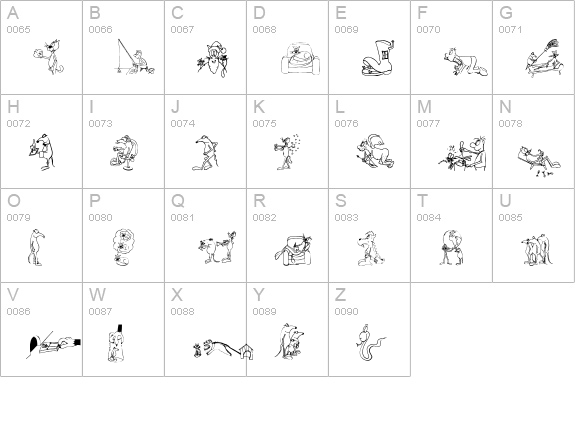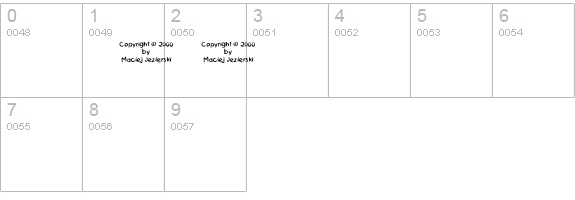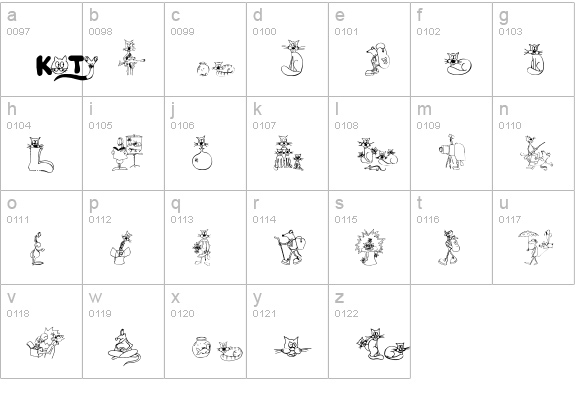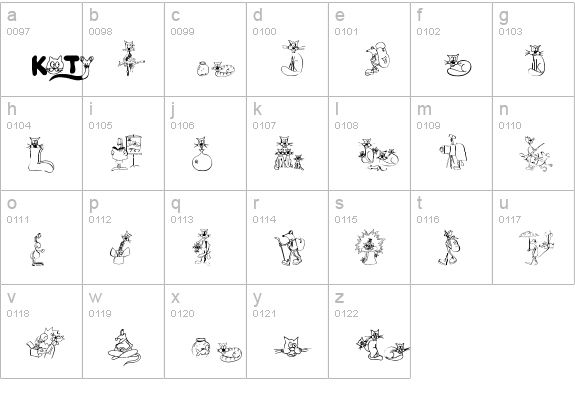
KocieSymbole Font Details
KocieSymbole font is a whimsical and artistic typeface that exudes creativity and fun. With its unique and playful design, this font is perfect for adding a touch of personality to your projects. Whether you're working on a poster, invitation, or any other design project, KocieSymbole will surely make a statement. What makes KocieSymbole even better is that it is available for free download at FontsMarket.com. This means you can easily access this charming font and use it in your creations without any cost. Don't miss out on the opportunity to enhance your designs with the delightful KocieSymbole font today!